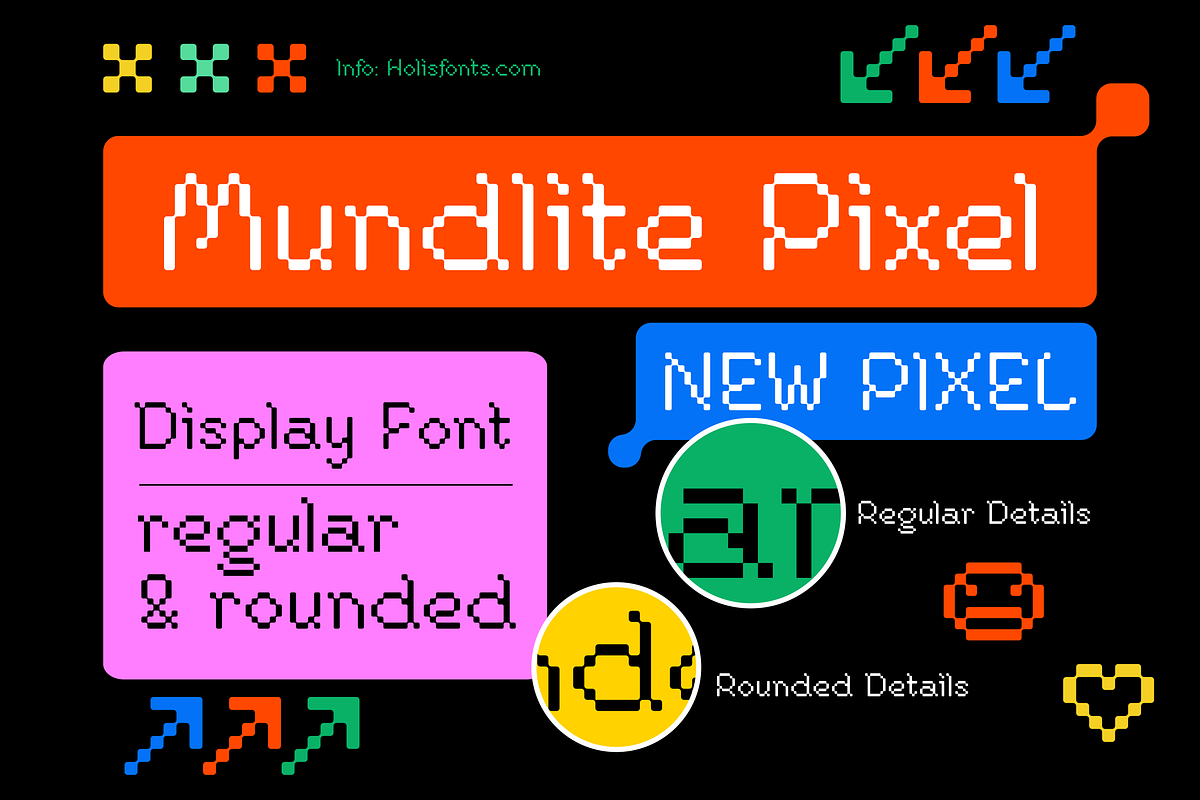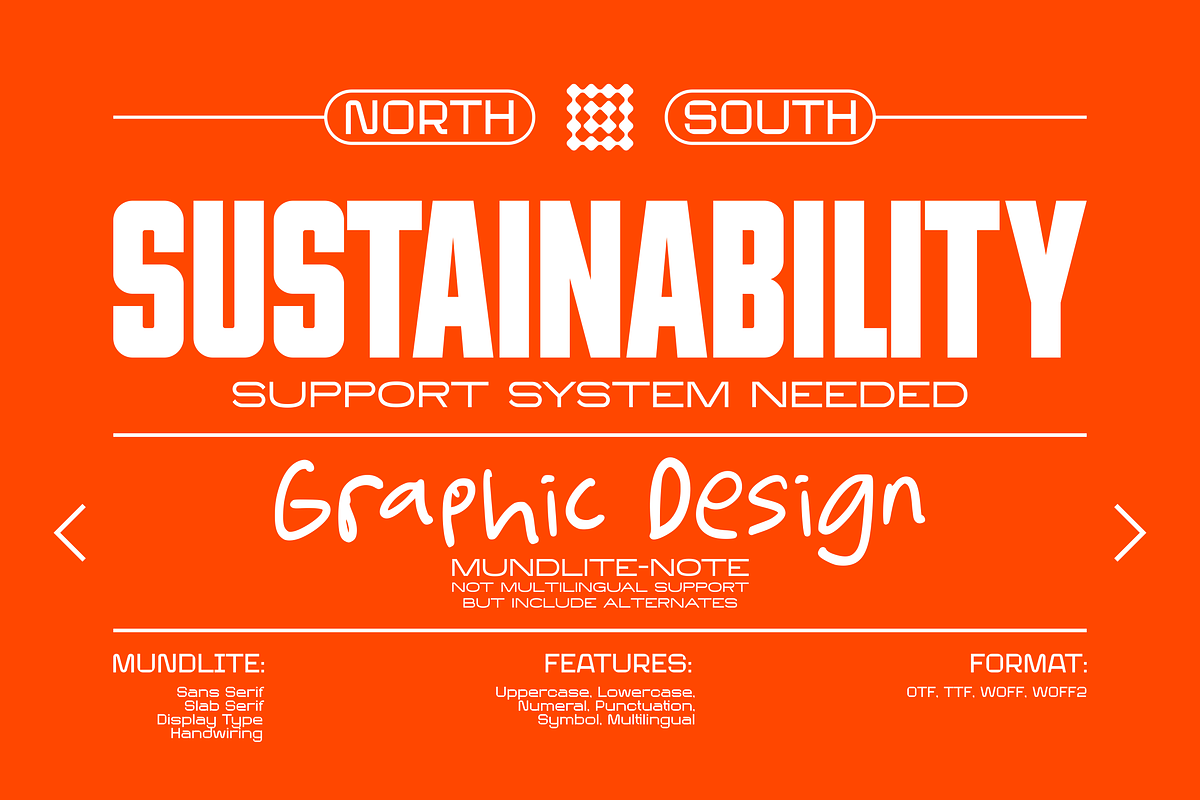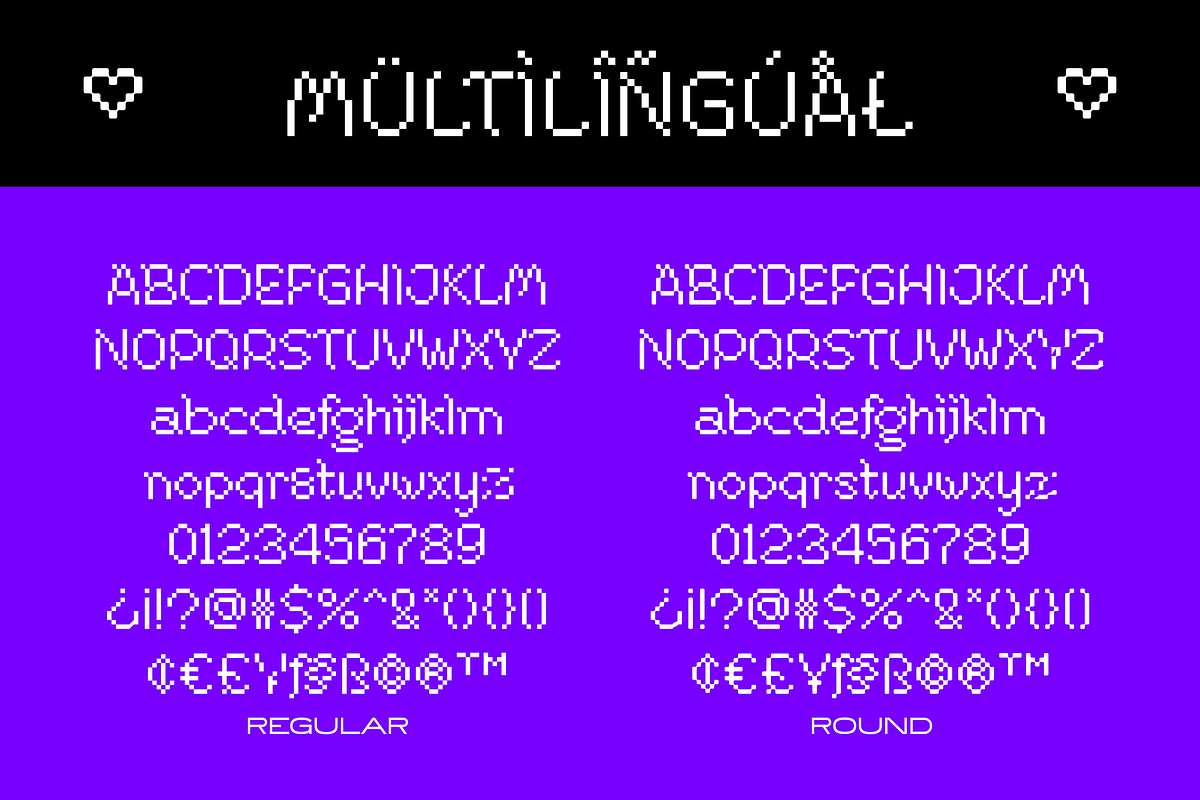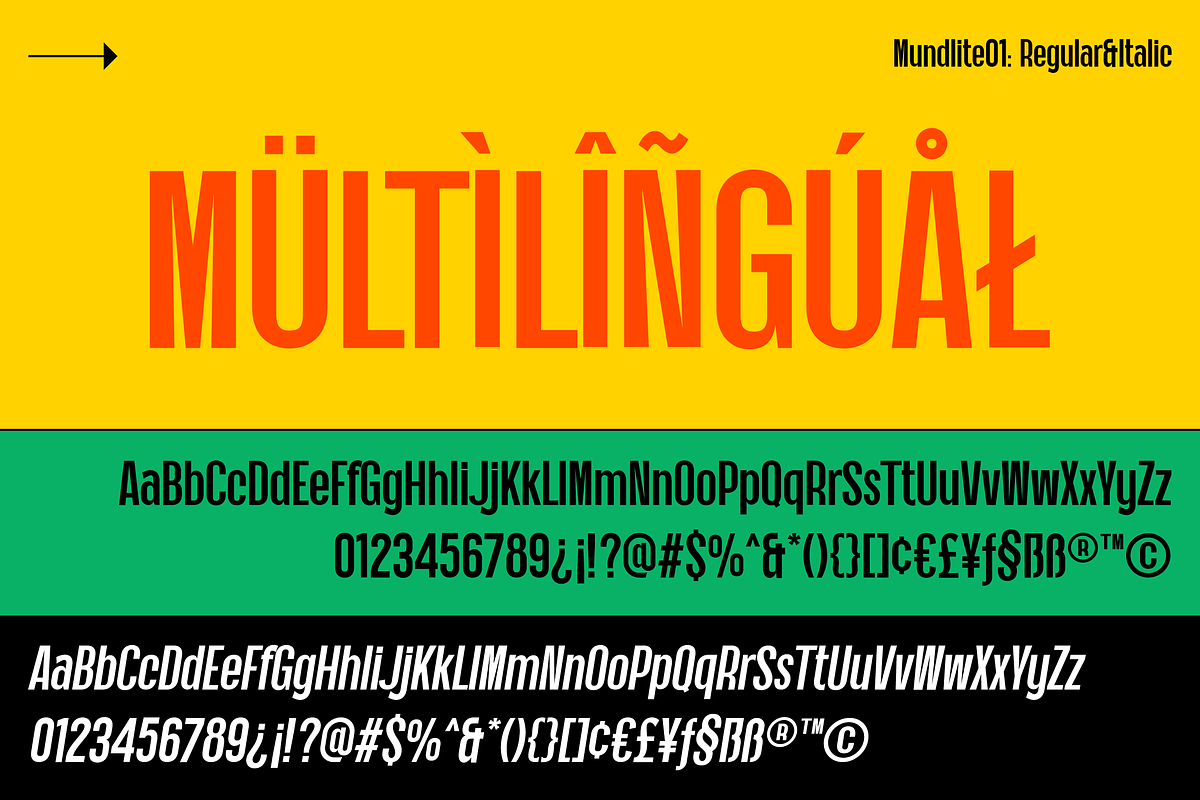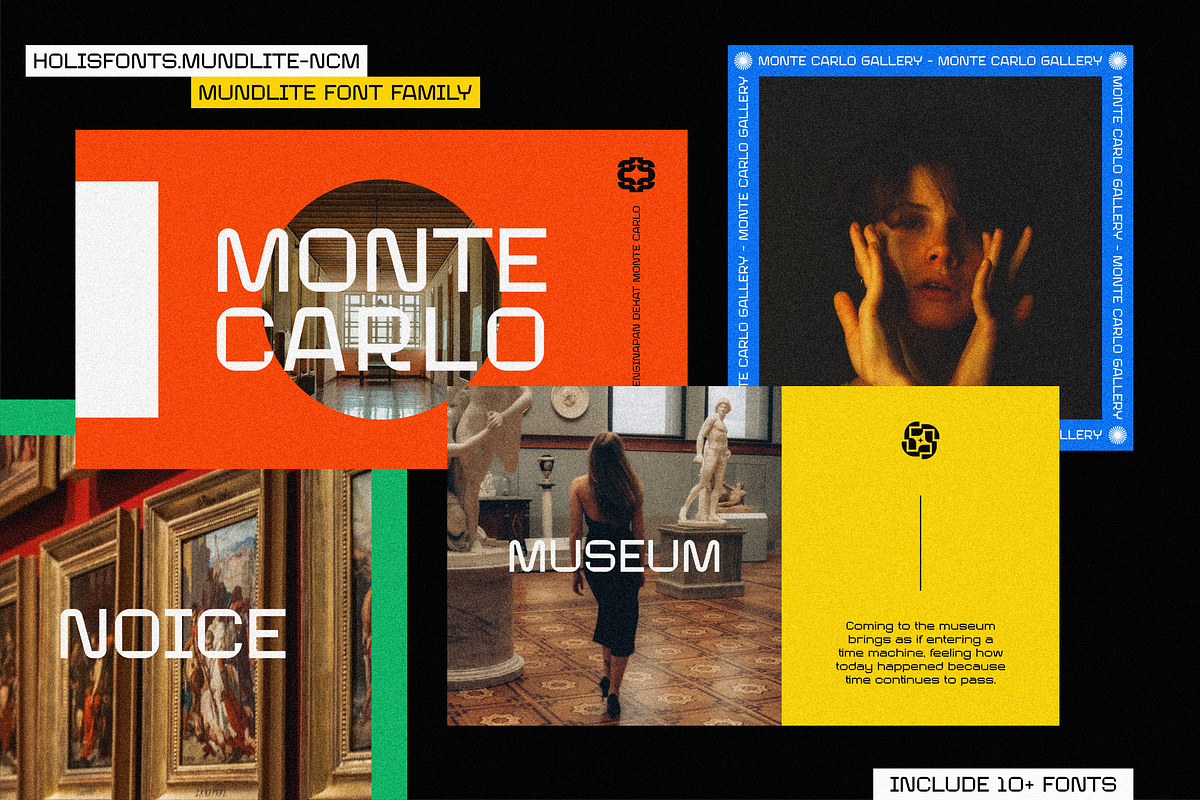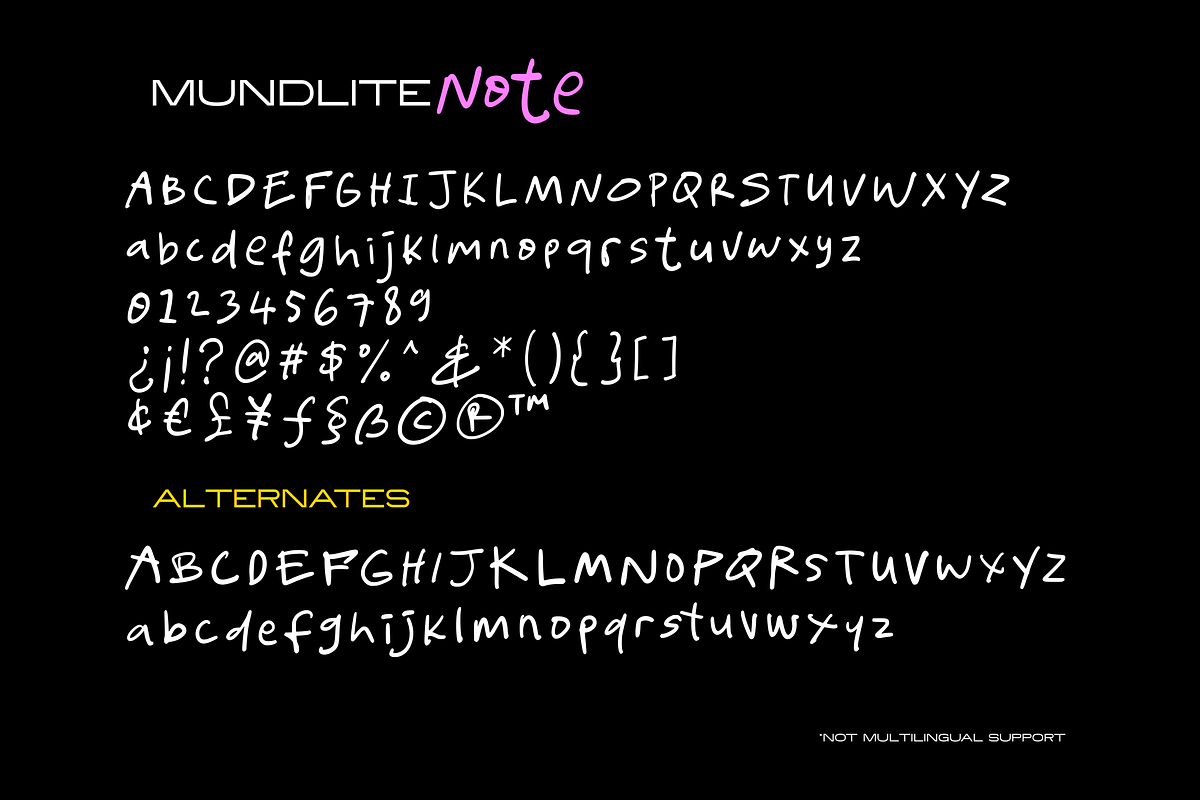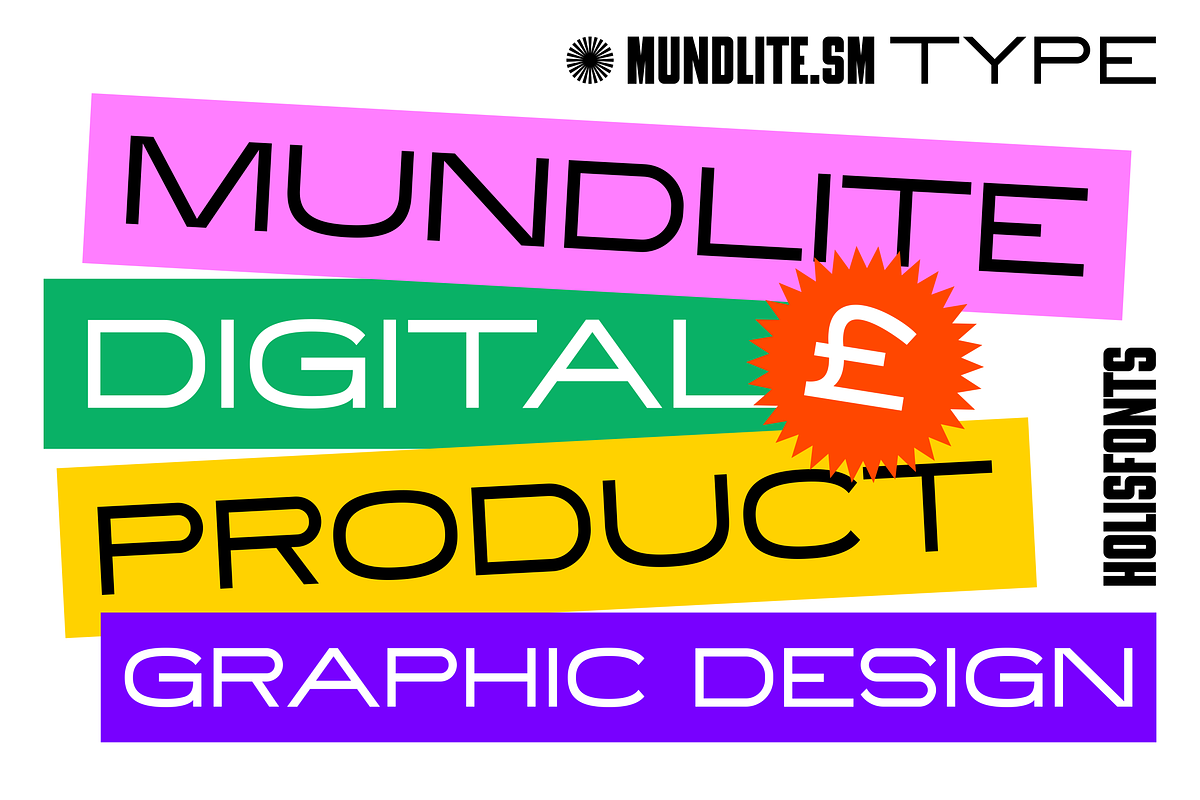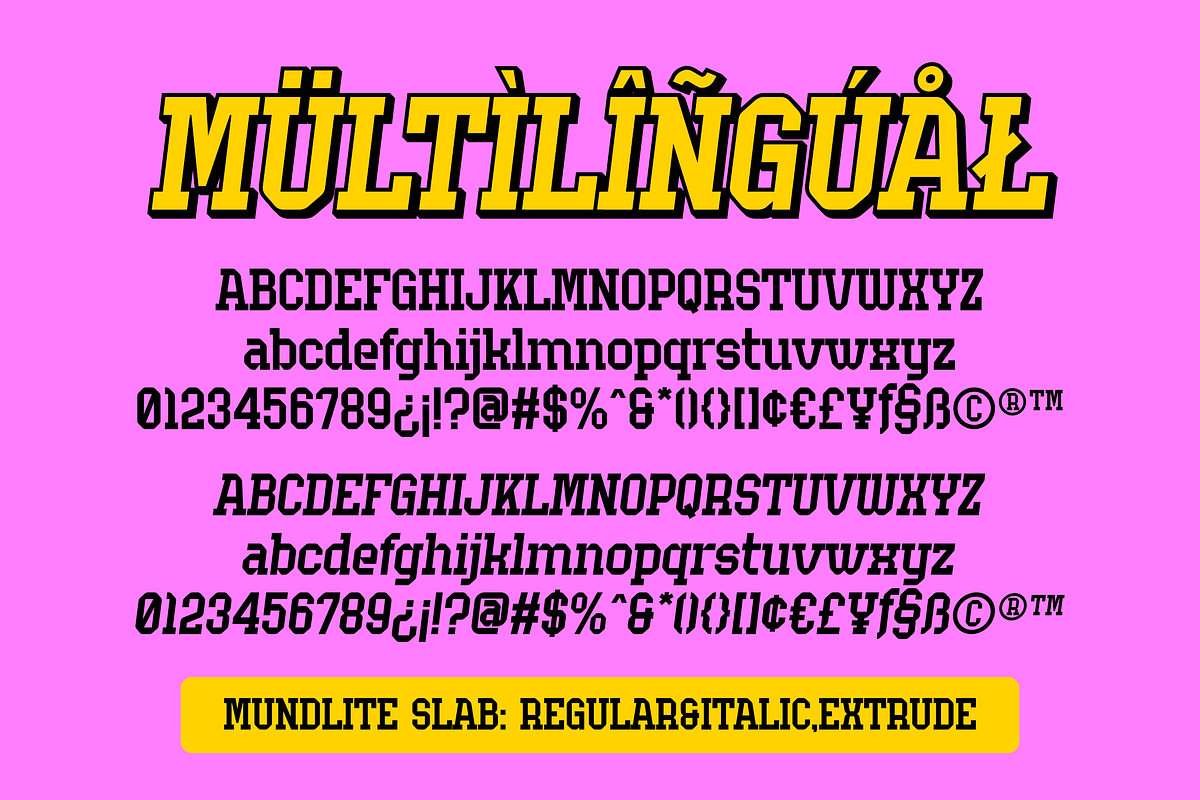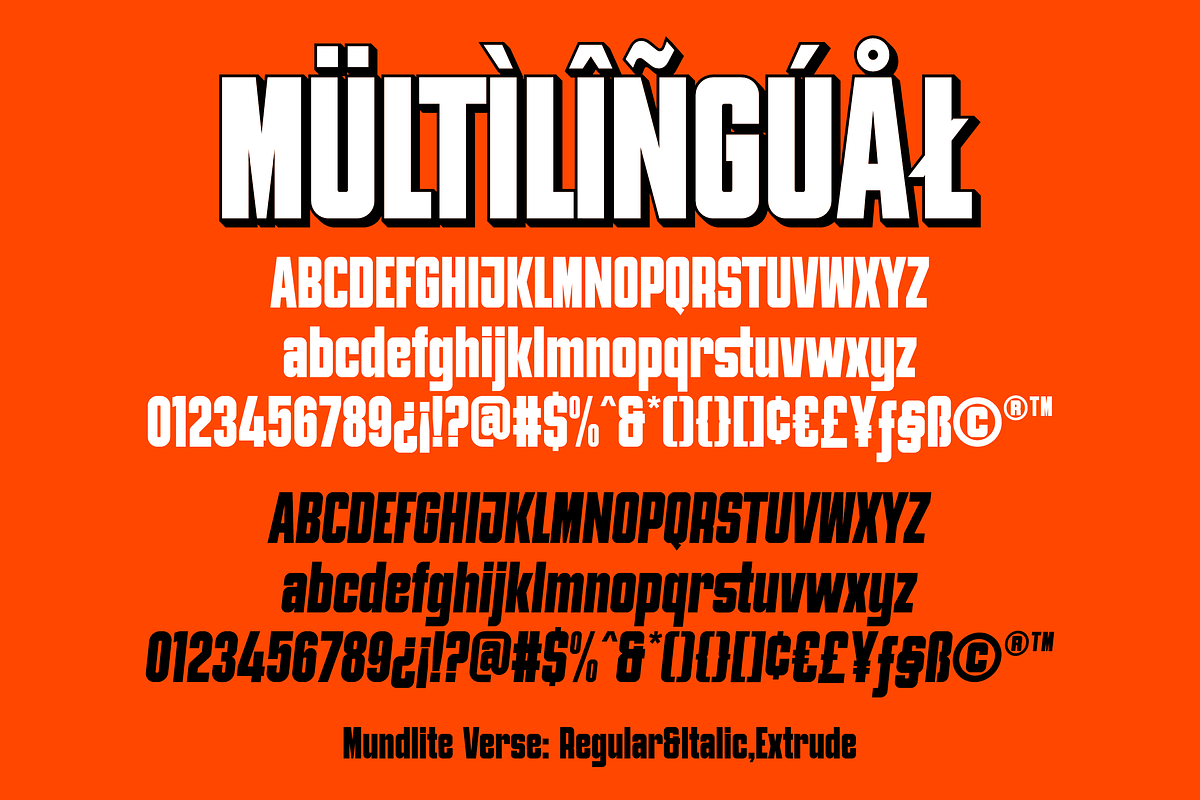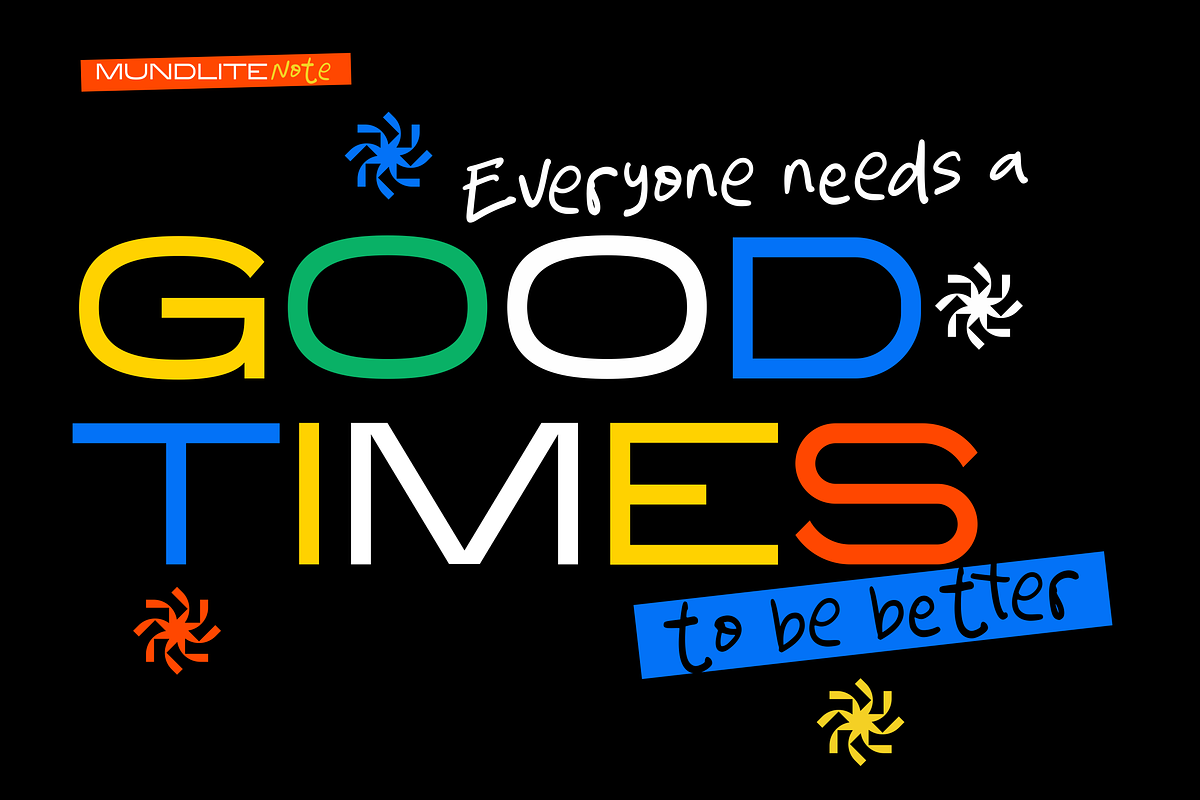
Mundlite Font Bundles
Mundlite Font family includes 20 fonts, they are fonts that are different styles from each other, but perfect to be used together for your designs such as logos, poster designs, websites, social media, branding, promotions, etc. Mundlite font family is carefully designed with a modern and minimalist style.
- Mundlite Regular and Italic
- Mundlite Verse Regular and Italic
- Mundlite Verse Regular and Italic Extrude
- Mundlite Slab Regular and Italic
- Mundlite Slab Regular and Italic Extrude
- Mundlite NCM
- Mundlite TW Regular and Italic
- Mundlite TW Regular and Italic Extrude/Shadow
- Mundlite Pixel Regular and Rounded
- Mundlite Note ( Natural Handwriting)
- Mundlite Abstarct Symbol